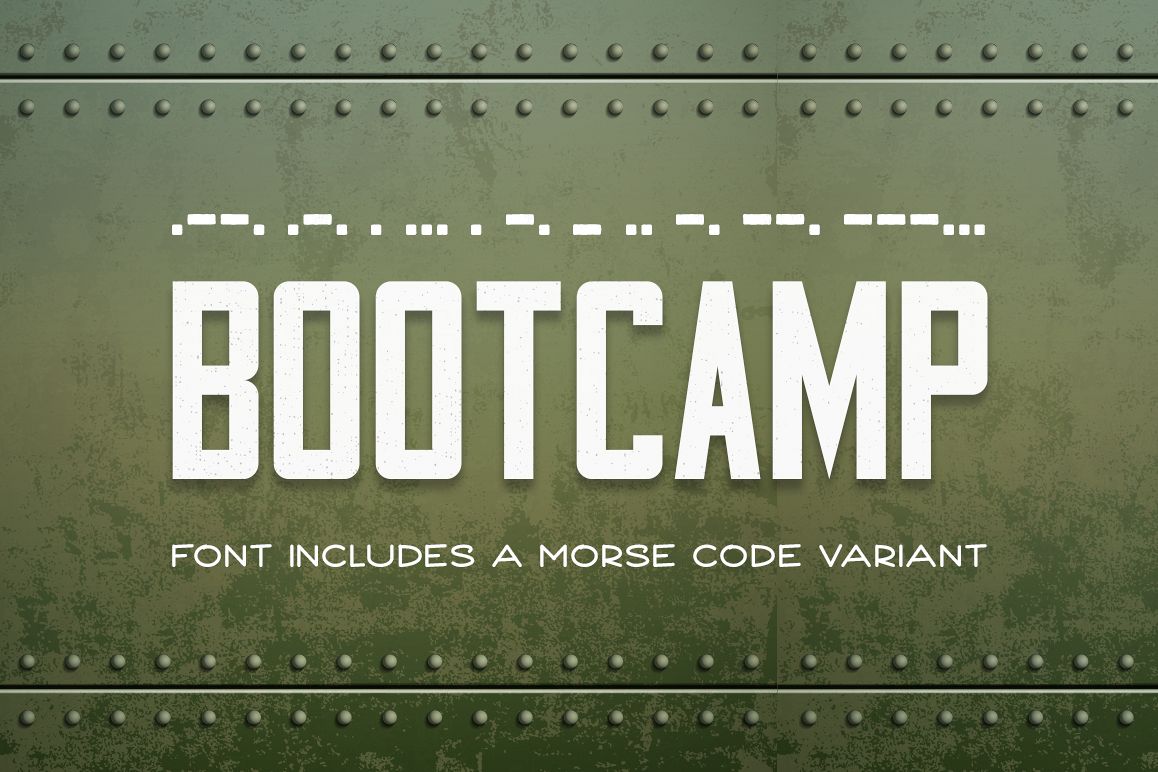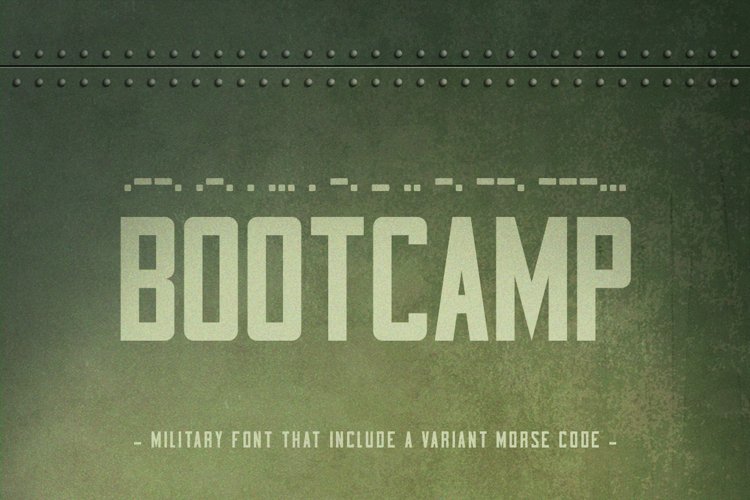
Bootcamp - Military
Bootcamp-Morsecode
Bootcamp
Bootcamp is a military condensed style font, first conceptualize for a WW1 commemorative design solution for veterans, as the development went along we realize that a good complement to it would be a Morse code variant, a very common use of communication at the time; between the dots and dashes comes a 2 font family that represent simpler times, when sacrifice for brothers and country was without question.